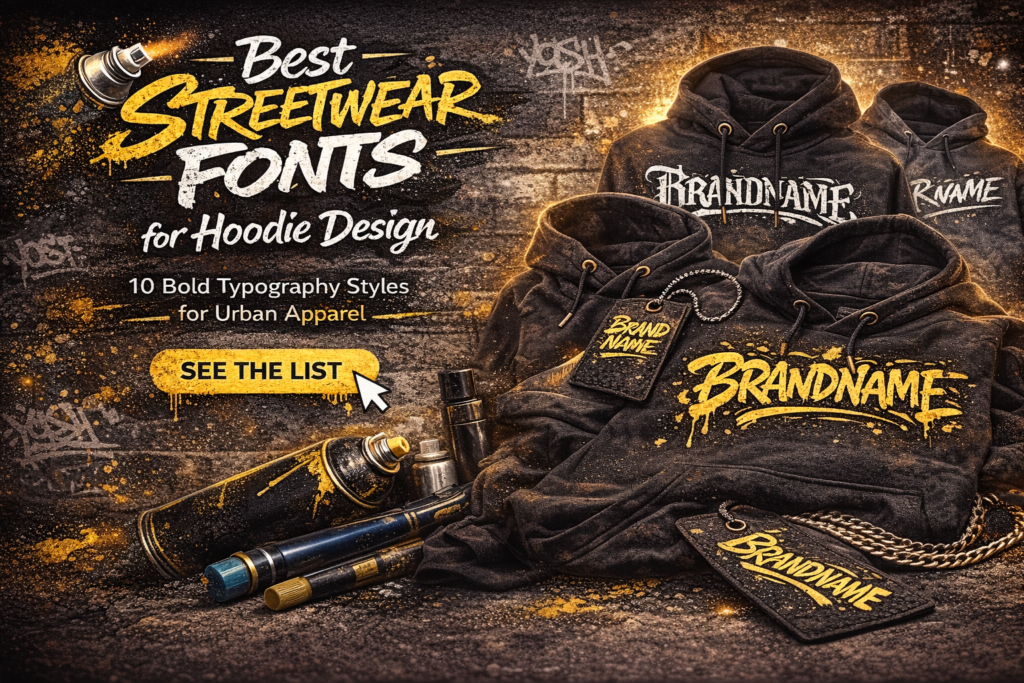
Best Streetwear Fonts for Hoodie Design: 10 Bold Typography Styles for Urban Apparel
When building a strong streetwear brand, choosing the best streetwear fonts for hoodie design is one of the most important decisions. Typography on hoodies is not just text — it becomes part of the product identity and often drives the appeal of the design itself.
In streetwear culture, bold and expressive typography can define the mood of a collection, create brand recognition, and make your product stand out.
In this guide, we’ll explore the best typography styles for hoodie designs and streetwear branding.
Why Typography Matters in Hoodie Design
Hoodies are one of the most iconic items in streetwear.
Typography directly impacts:
• product aesthetic
• brand identity
• customer appeal
• memorability
A strong font can make a simple hoodie design look premium and desirable.
10 Best Streetwear Fonts for Hoodie Design
1. Graffiti Fonts
Graffiti typography is one of the most popular choices for hoodies.
Perfect for:
• urban brands
• skater apparel
• youth streetwear
This style creates a raw and authentic vibe.
2. Gothic Fonts
Gothic fonts are bold and iconic.
Excellent for:
• dark streetwear
• premium hoodie collections
• limited drops
3. Brush Fonts
Brush lettering adds movement and energy.
Great for:
• oversized hoodies
• lifestyle apparel
• casual streetwear
4. Bold Sans Serif Fonts
These fonts create a clean yet strong look.
Perfect for minimalist streetwear brands.
5. Drip Fonts
Drip typography gives an edgy and rebellious aesthetic.
Ideal for:
• hype drops
• youth brands
• urban fashion
6. Distressed Fonts
These fonts create a rugged and worn look.
Excellent for vintage streetwear aesthetics.
7. Minimal Display Fonts
For premium hoodie brands, clean display fonts work very well.
8. Bubble Graffiti Fonts
Playful and expressive.
Great for younger target markets.
9. Custom Lettering
Custom fonts make your hoodie branding unique.
Highly recommended for premium merch.
10. Experimental Urban Fonts
These fonts help brands stand out visually.
Perfect for fashion campaigns.
How to Choose the Best Streetwear Fonts for Hoodie Design
Choose based on:
Brand Style
Luxury streetwear → gothic / minimal
Urban streetwear → graffiti / drip
Lifestyle → brush / sans serif
Readability
Typography must still be clear on fabric prints.
Print Compatibility
Make sure the font works well for:
• screen printing
• embroidery
• DTG printing
Best Fonts for Hoodie Branding
Final Thoughts
Choosing the best streetwear fonts for hoodie design can significantly improve product appeal and brand identity.
Typography in apparel directly affects how customers perceive the brand.
For streetwear labels, premium fonts can help increase perceived value and make products look more exclusive.